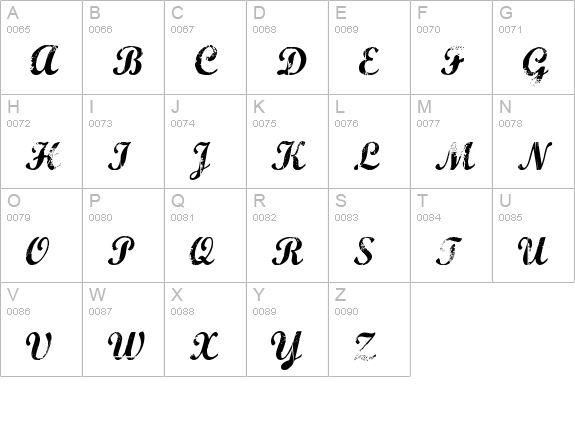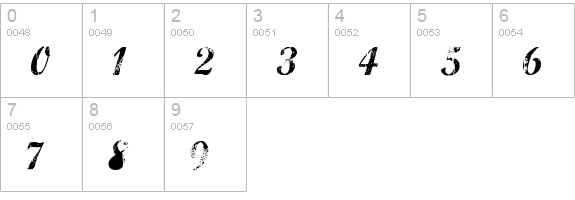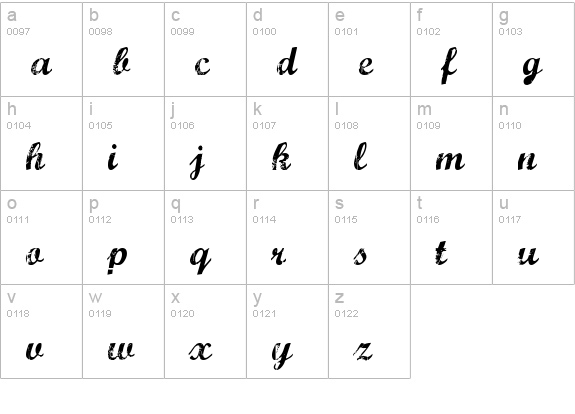
Marcelle Script Font Details
Marcelle Script is a beautifully crafted font that exudes elegance and sophistication. Its exquisite cursive style instantly adds a touch of class to any design project. With its flowing lines and delicate curves, Marcelle Script is perfect for creating stunning logos, wedding invitations, greeting cards, and more. One of the best things about Marcelle Script is that it is free. Yes, you read that right! This amazing font is freely available to download at FontsMarket.com. Now, you can enjoy the beauty and versatility of Marcelle Script without having to spend a penny. Featuring a wide range of ligatures and alternate characters, Marcelle Script offers endless possibilities for customization. Whether you want to create a romantic and whimsical design or a sleek and modern look, this font has got you covered. With its smooth and fluid strokes, Marcelle Script effortlessly captures the essence of handwritten calligraphy. Each letter is meticulously crafted, ensuring that every word you write is a work of art. Whether you're a professional designer or a DIY enthusiast, Marcelle Script will elevate your projects to new heights. So why wait? Download Marcelle Script today and unlock a world of creativity. With its timeless beauty and versatility, this font is sure to become your go-to choice for all your design needs. Remember, it's free and available exclusively at FontsMarket.com. Don't miss out on this incredible opportunity to enhance your designs with the elegance of Marcelle Script.